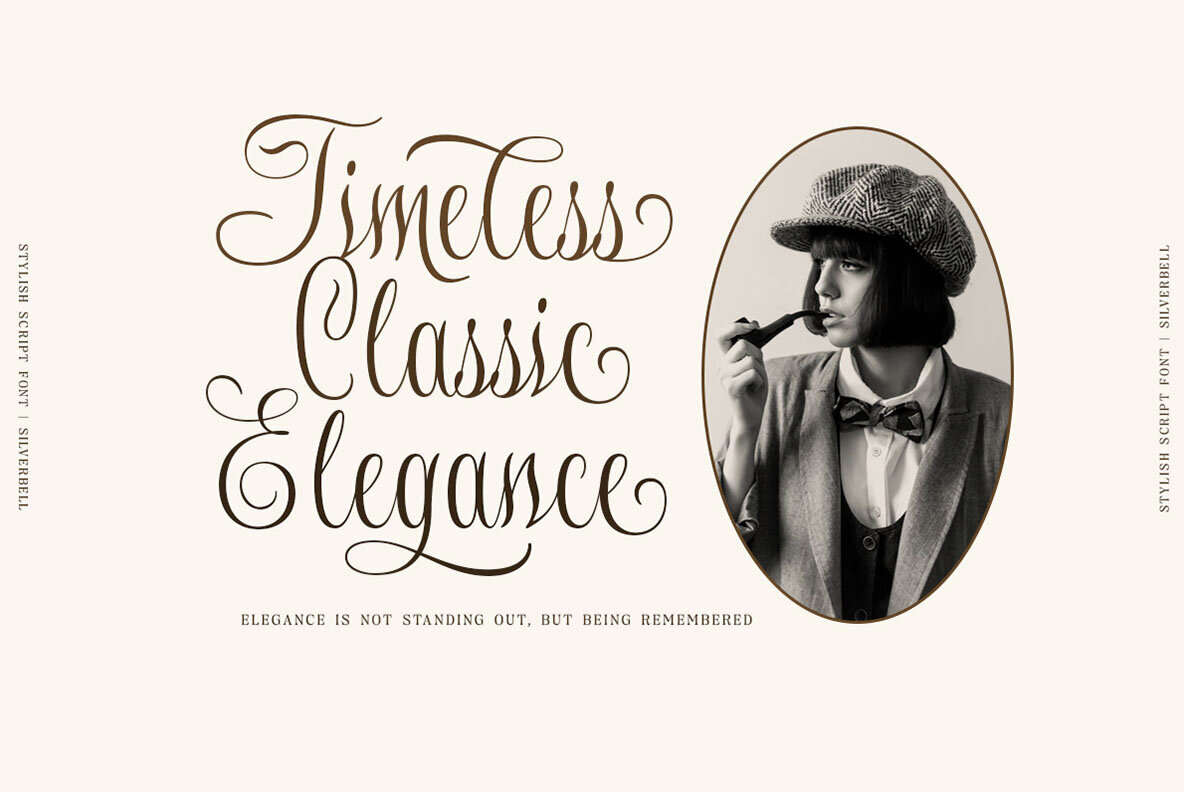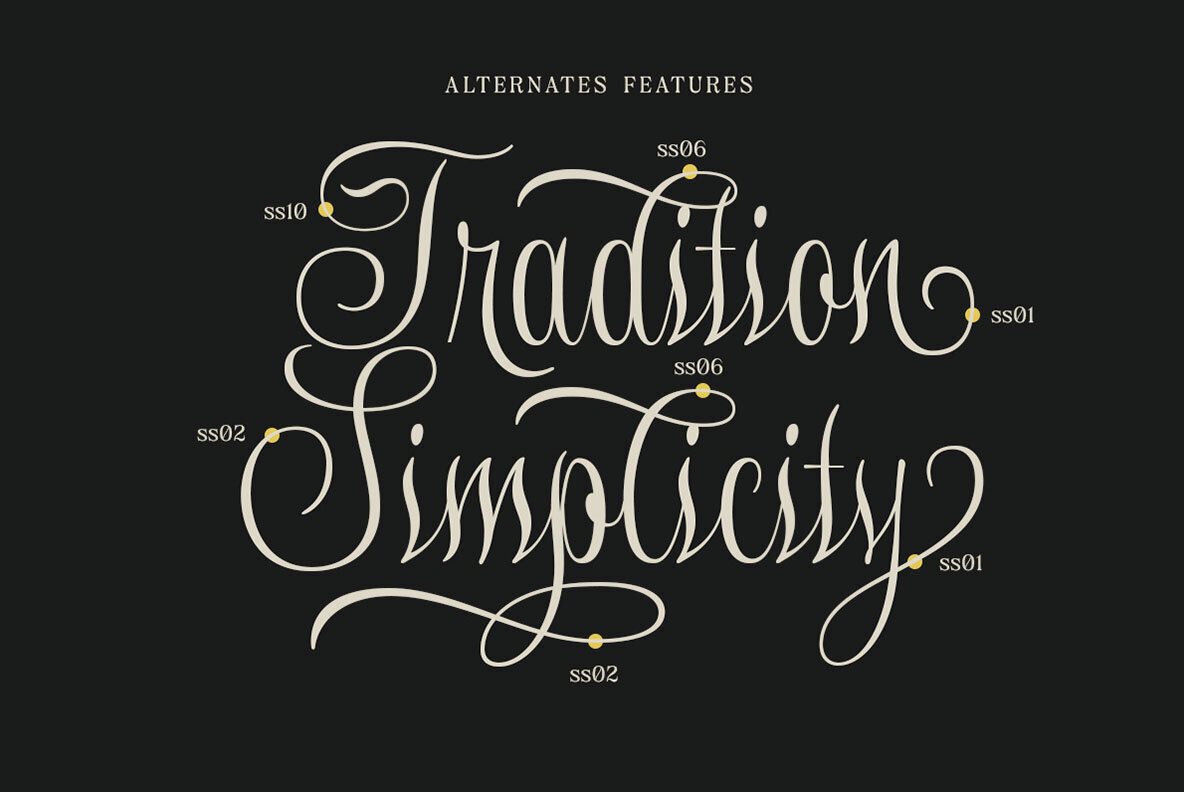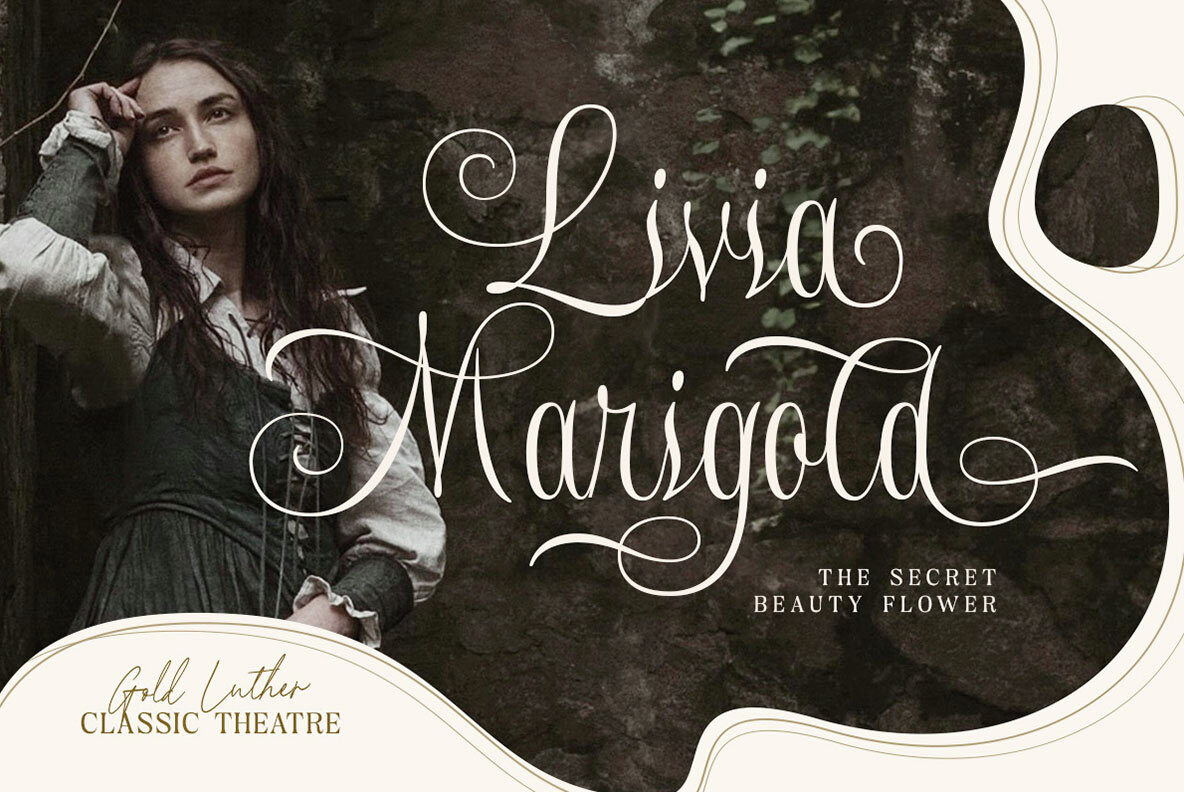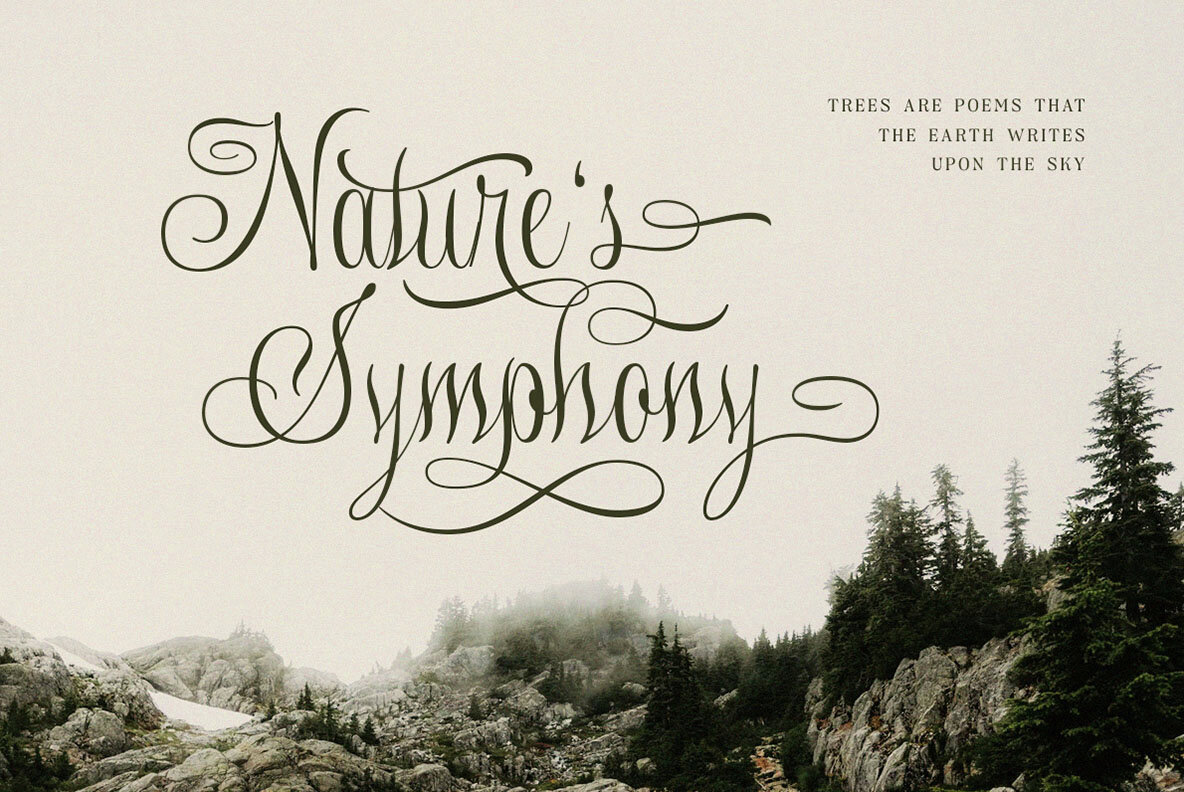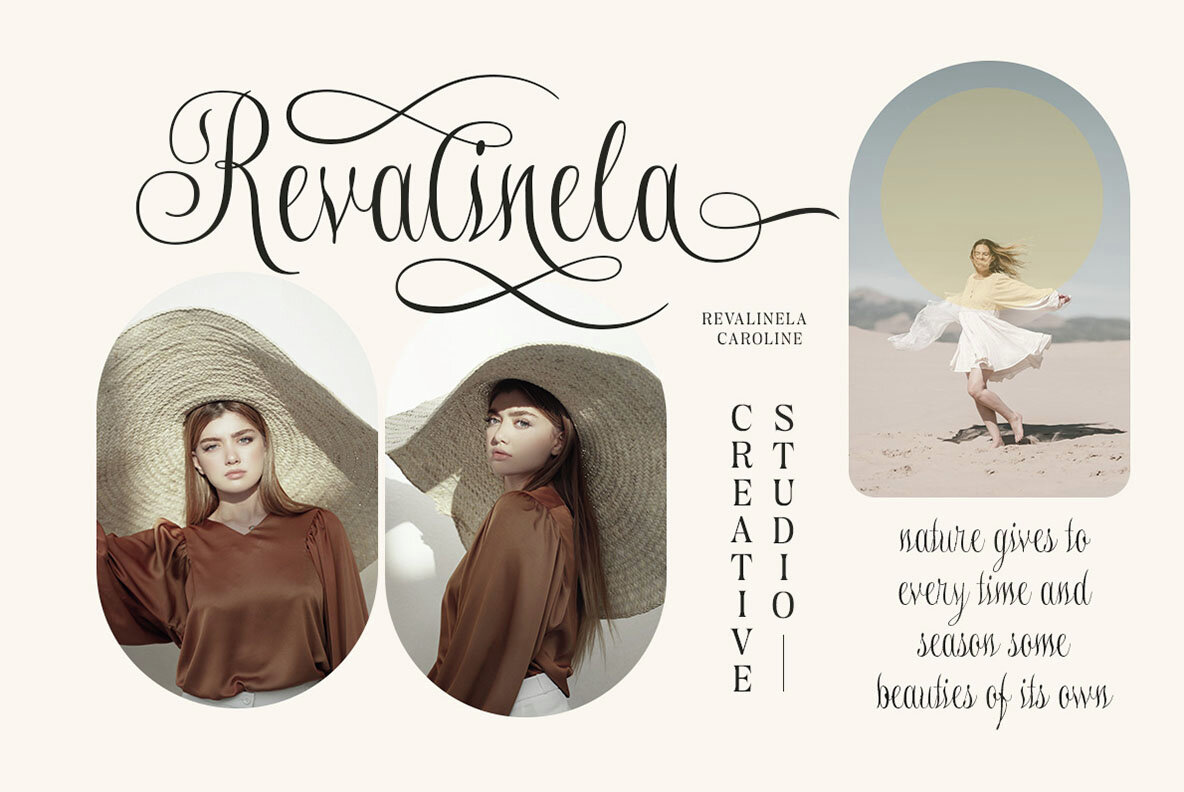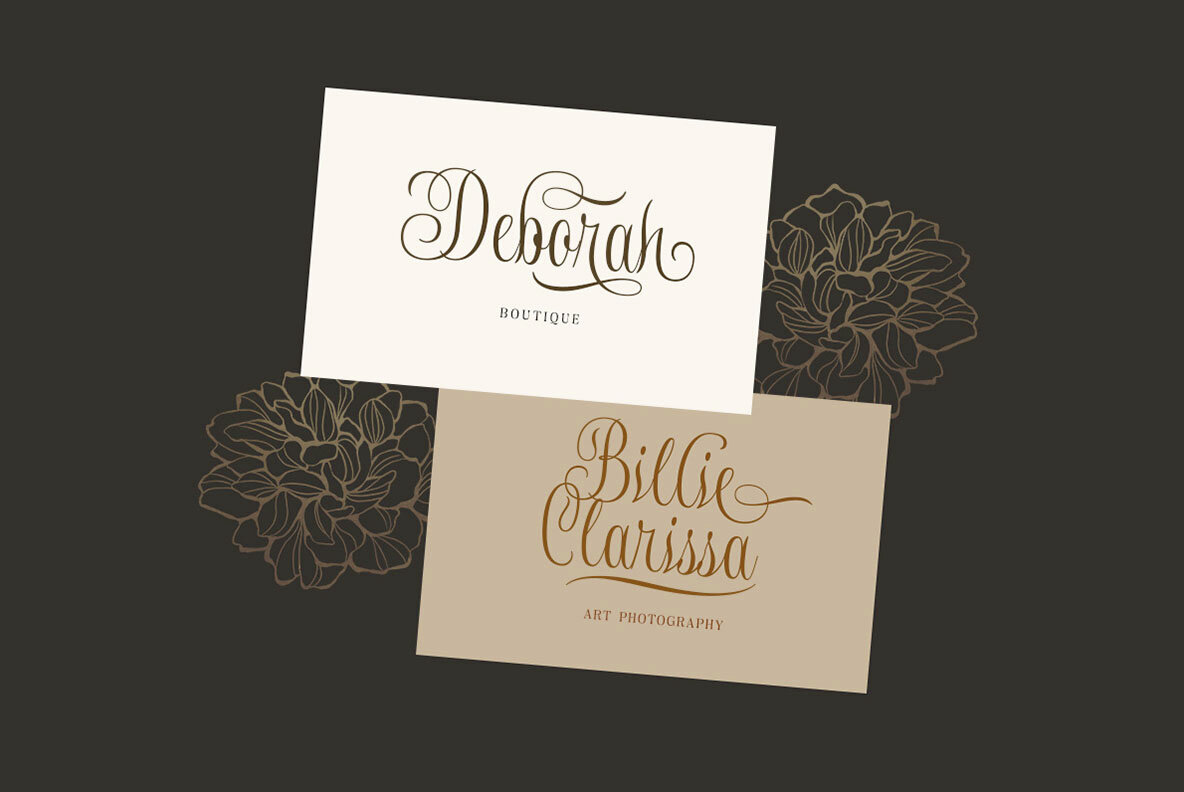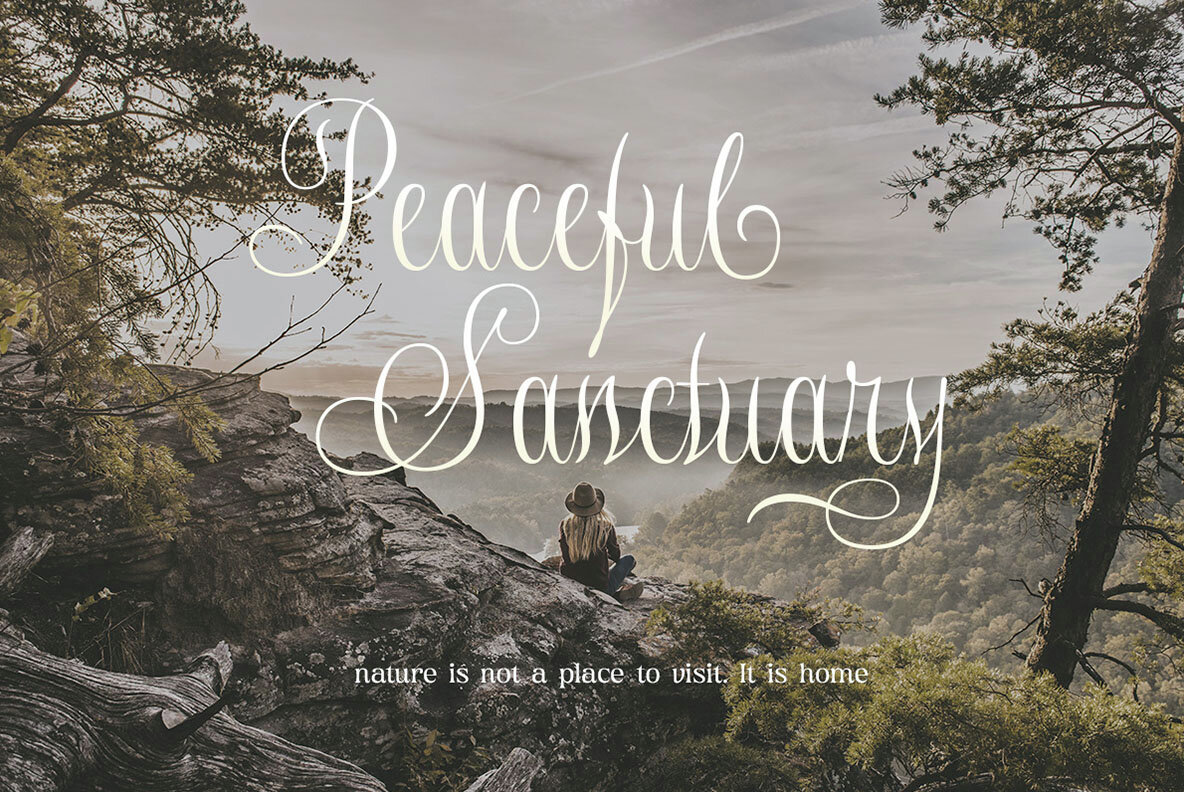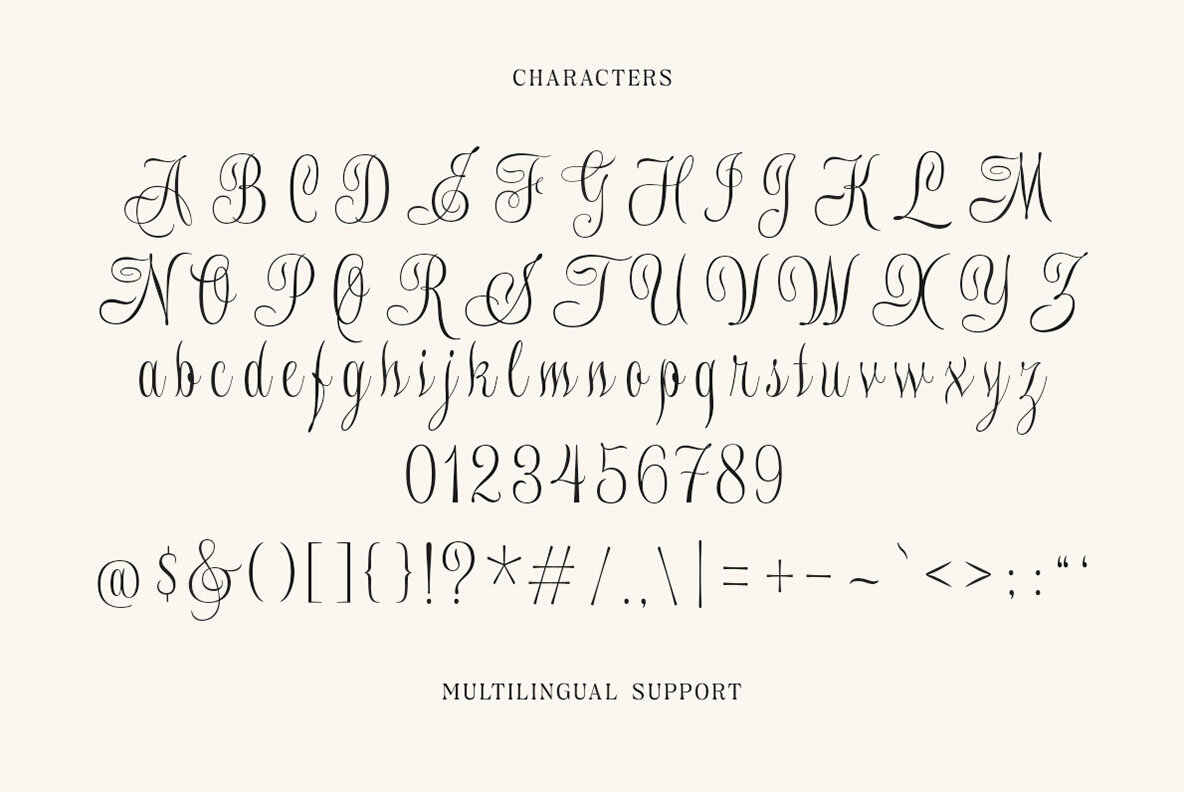
Silverbell Font
Silverbell Regular
Silverbell is a timeless script font with stylish swashes, promising classic beauty and elegance. Ideal for formal documents, stunning invitations, alluring branding materials, or elegant packaging, it adds sophistication to any design project.